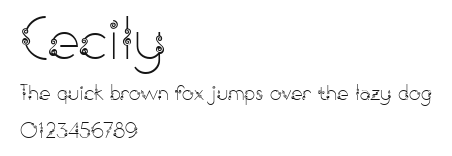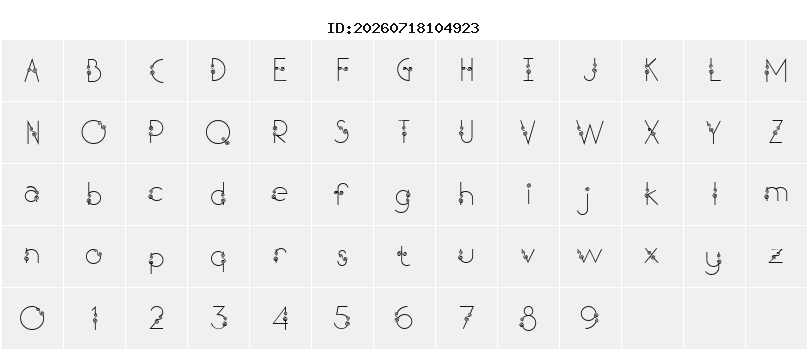
• Font Name: Cecily
Cecily.ttf is a modern, elegant sans-serif font designed for ultimate readability and visual harmony. Perfect for branding, headlines, web design, and print materials.